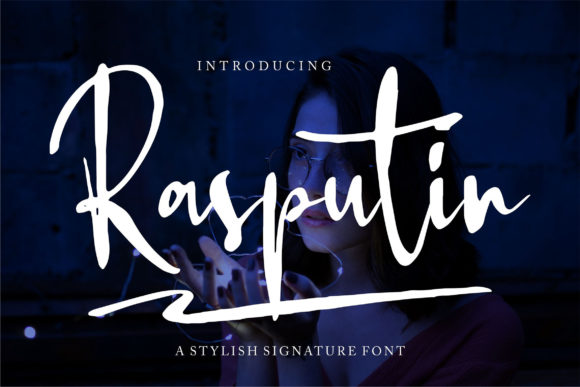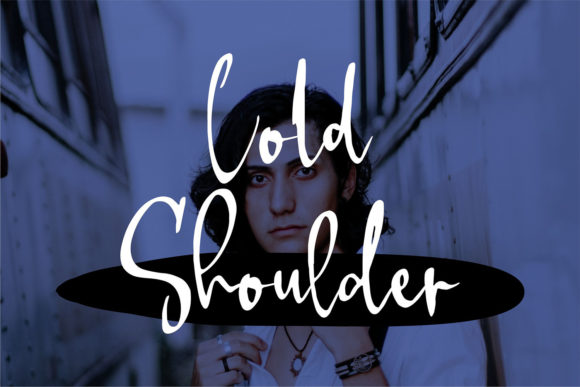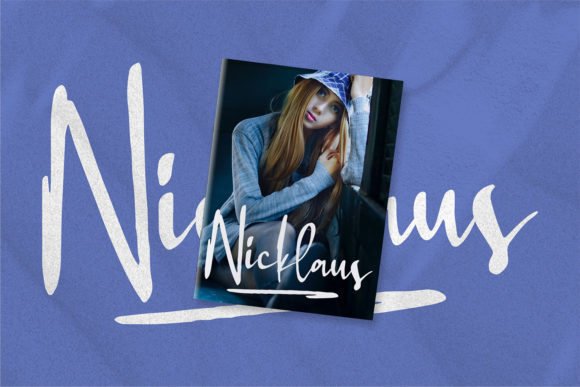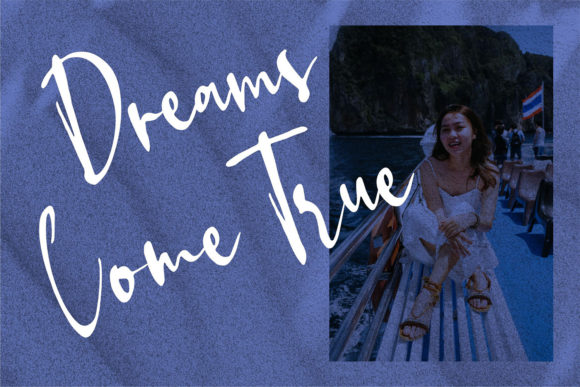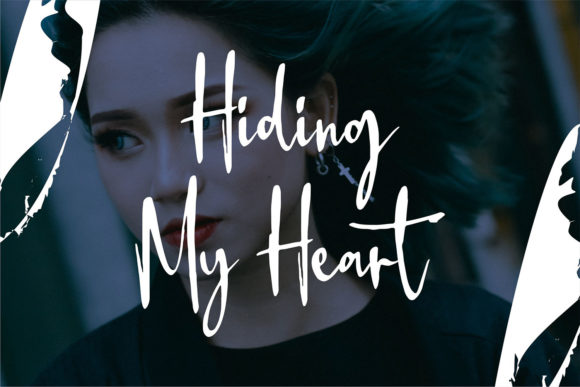
About Rasputin Font
Rasputin is a stylish and classic script font with a signature feel and an exquisite touch to every character. Use it for projects that need an expensive, polished look and a beautiful personal note.